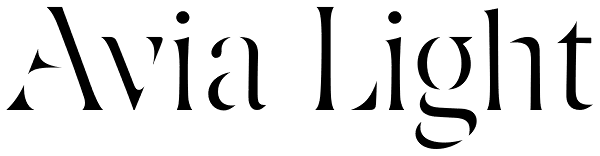
Avia
We have all seen proofs where faulty platemaking or light inking has lost all hairlines in a delicate roman. Raphael Boguslav observed the effect and understood it as a sophisticated form of stencil design. He used the idea in a logotype for Abex...